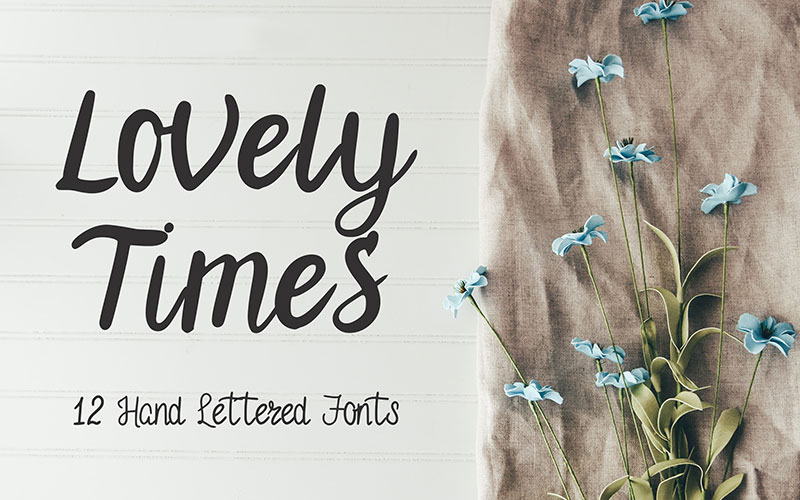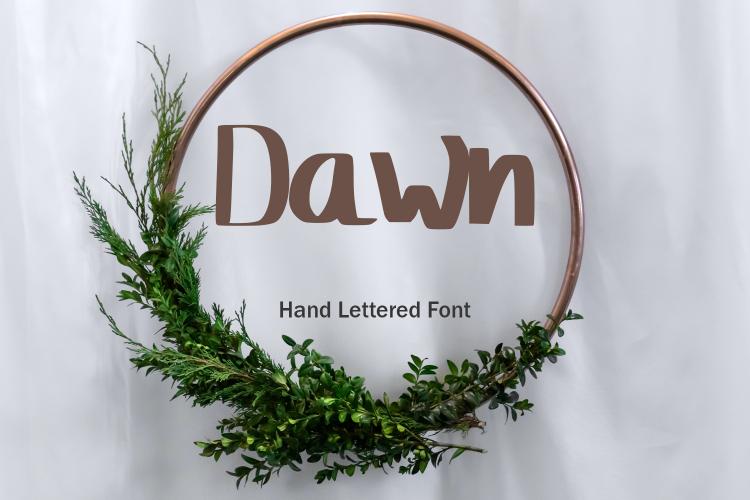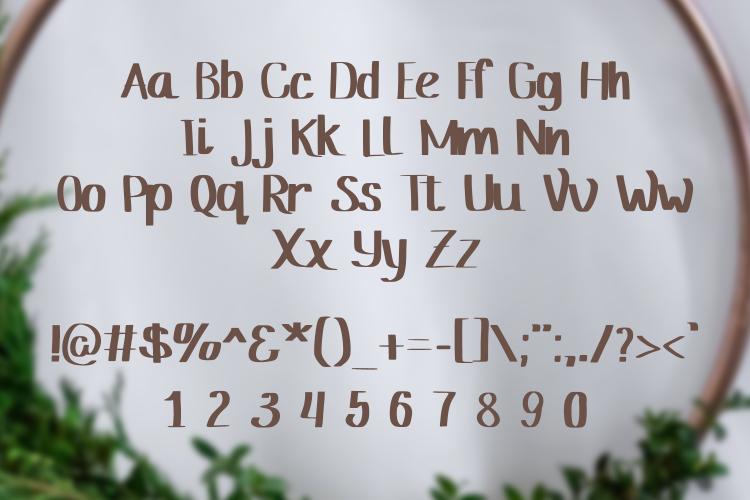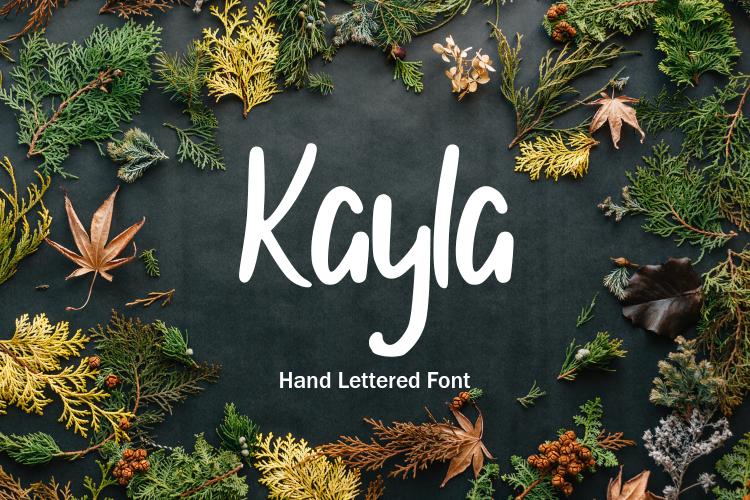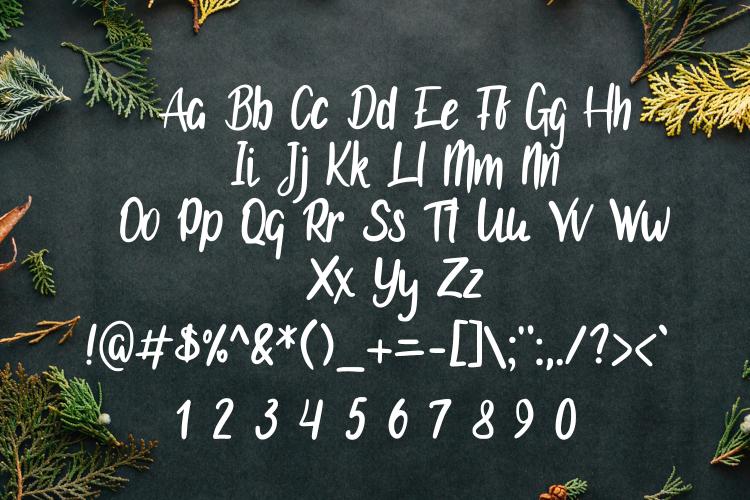
Ever feel like your designs are stuck in a font rut? The same old Arial, Calibri, New Roman. Your words deserve better –
12 Hand-lettered Fonts Bundle.
The Lovely Times Fonts Bundle is a treasure chest overflowing with 12 unique, hand-lettered fonts ready to ignite your creative spark.
Mix and match these fonts and create unique logos, social media posts, invitations, quotes and a lot more.
- 12 unique hand lettered fonts
12 Categories In Hand-Lettered Fonts Bundle:
Adeline Fonts
Dawn Fonts
Hilda Fonts
Jamie Fonts
Jeannette Fonts
Jocelyn Fonts
Kayla Fonts
Kendra Fonts
Kimberly Fonts
Laverne Fonts
Lorene Fonts
Lynne Fonts